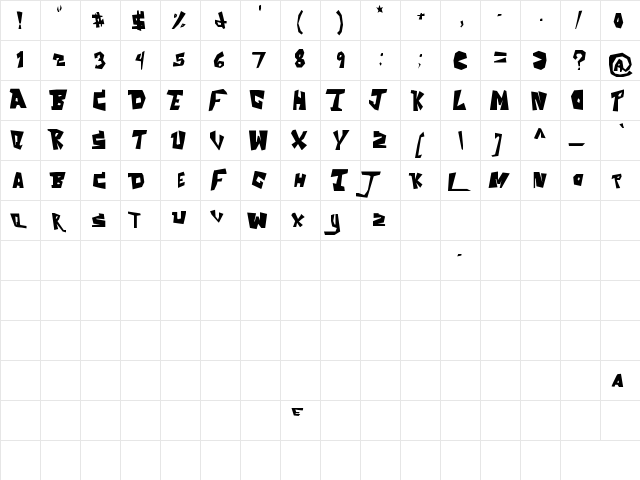
The Aquabats! Regular
Design Context for The Aquabats! Typeface
The Aquabats! is a composed and adaptable typeface that performs quietly and consistently across a wide range of design contexts.